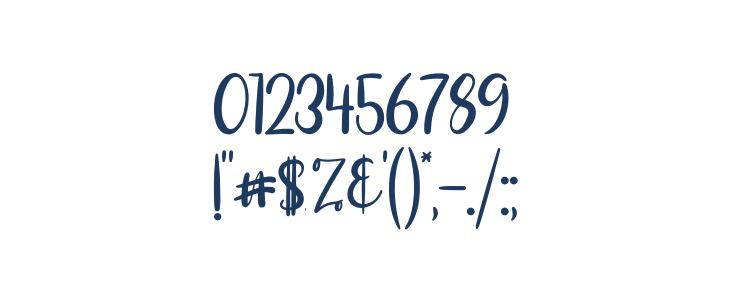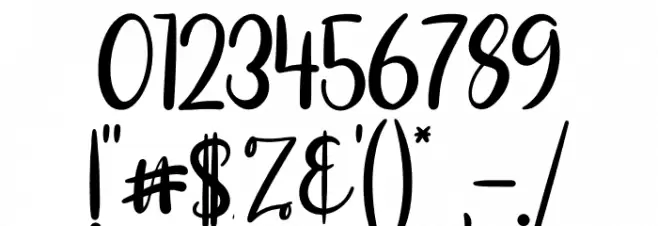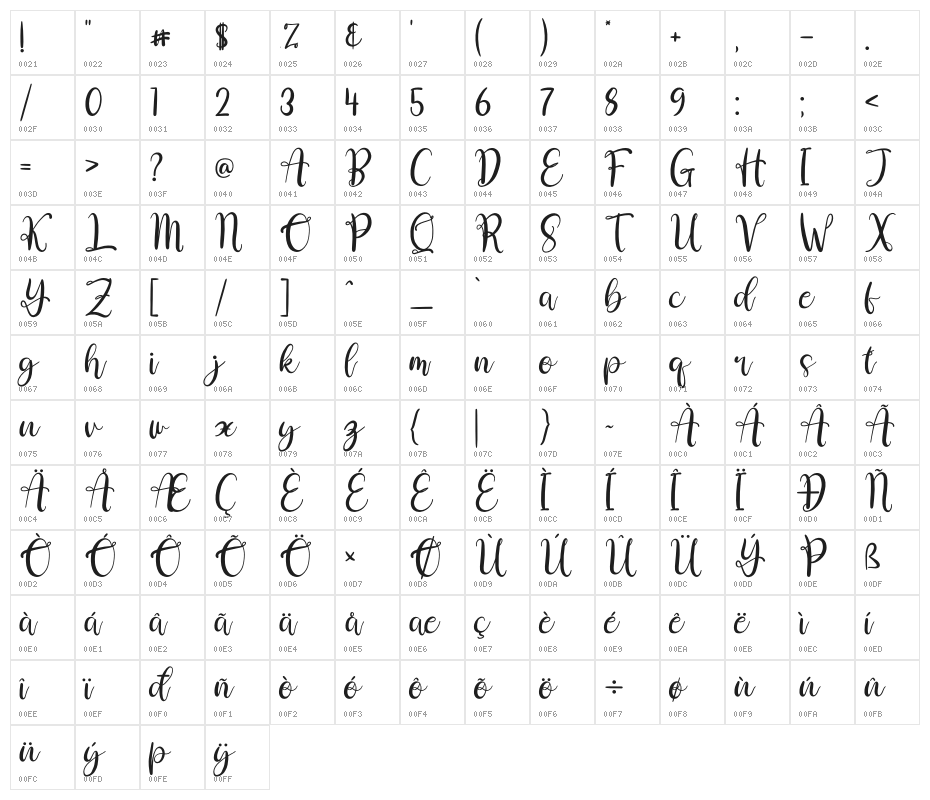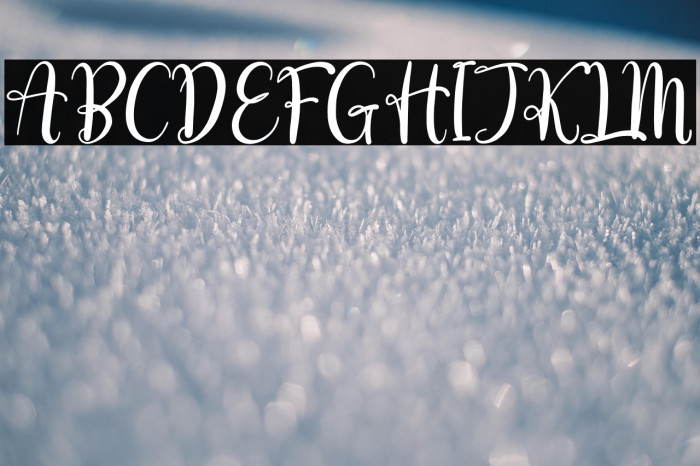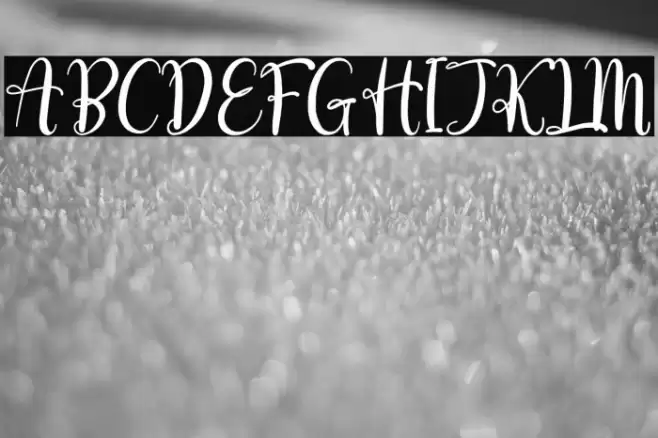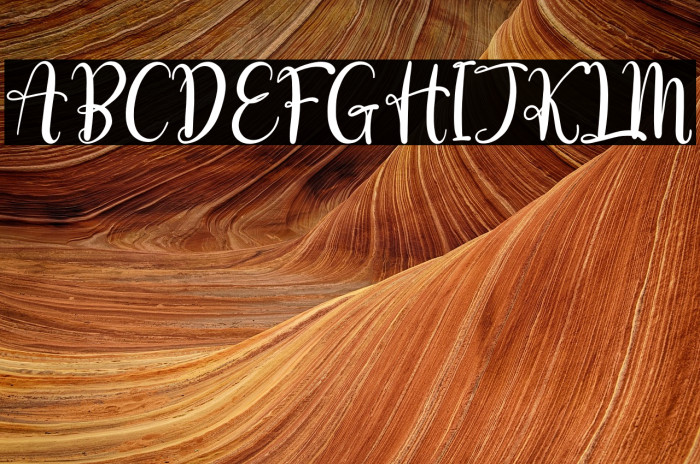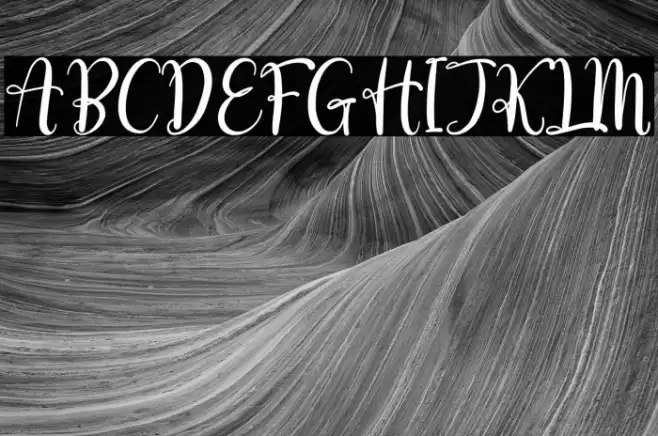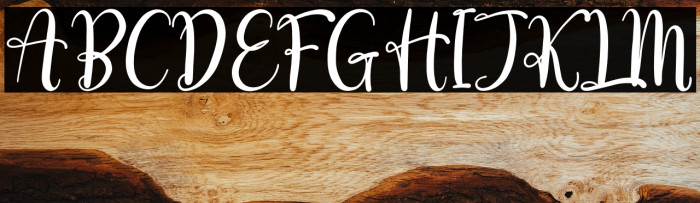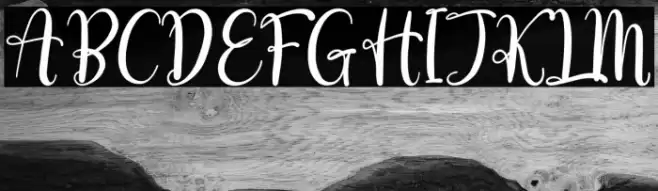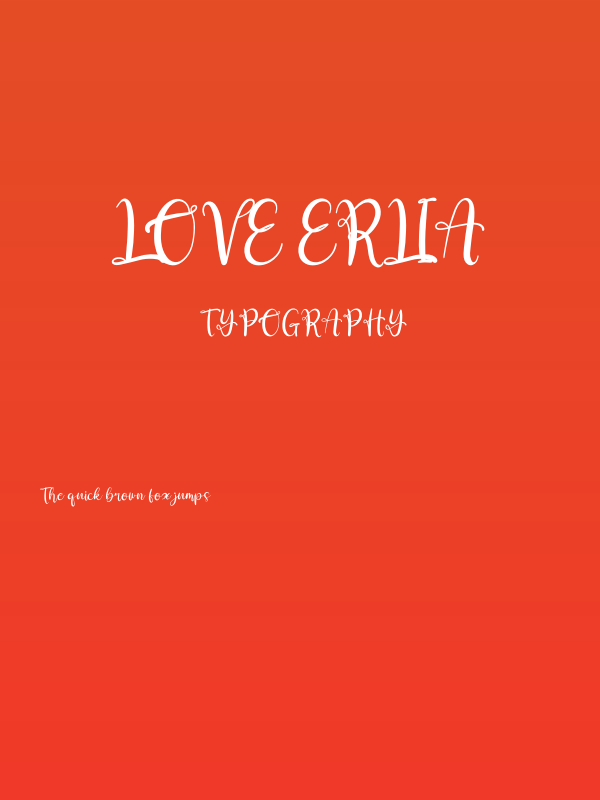
love erlia Font
love erlia Description
This font exhibits a playful and elegant script style with a flowing, cursive design. The uppercase letters are characterized by their smooth curves and loops, giving them a whimsical yet sophisticated appearance. The lowercase letters maintain a consistent flow, with some characters featuring distinctive flourishes that add to the font's charm. The numerals are clear and easy to read, while the special characters blend seamlessly with the overall aesthetic. This font's design is both artistic and functional, making it suitable for a variety of creative applications.